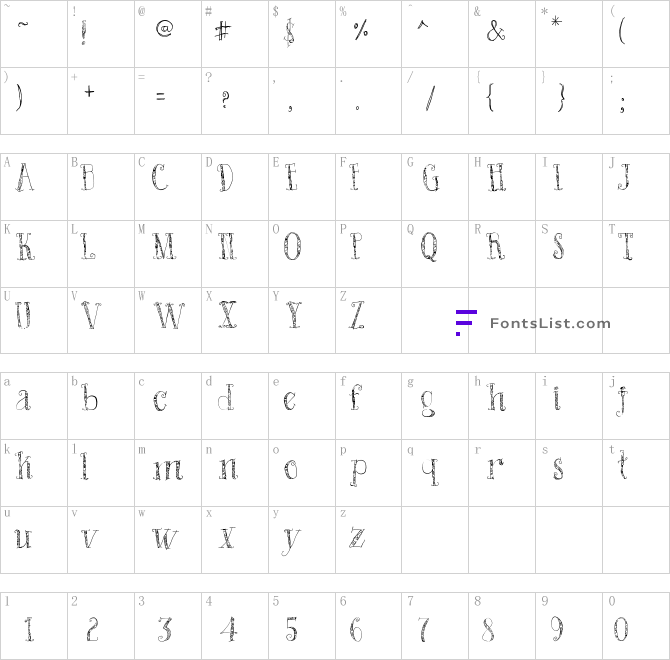
- Font Name:Bad King
Bad-King.ttf is a very beautiful artistic font, Bad-King.ttf is widely used in the design and printing of various books and pictures,Bad-King.ttf has a strong visual impact,Bad-King.ttf is a commonly used font in newspapers, magazines and books, and is used in posters, e-commerce Poster design, store design, logo design, font design and other fields.Bad-King.